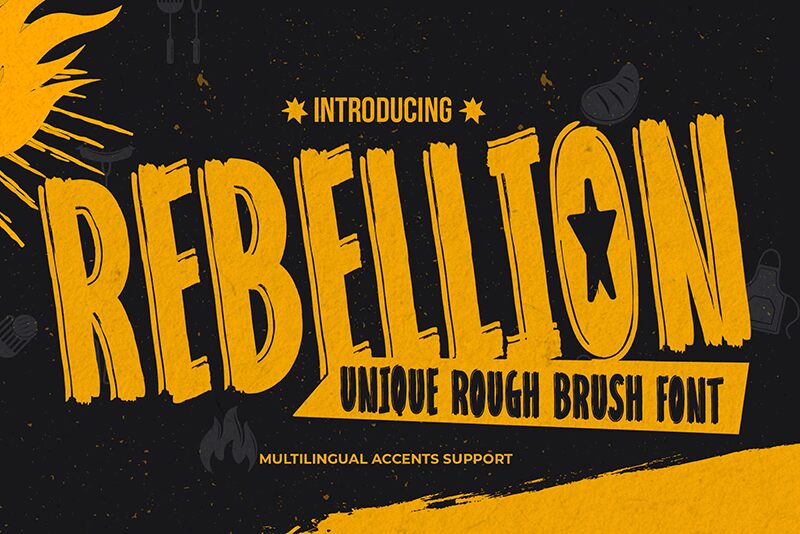
Rebelion
Rebelion by Gassstype stands out as a brush font with an unapologetically bold and extra-condensed style, embodying the essence of a modern rough brush script. Crafted to capture the spirit of spontaneity, Rebelion boasts dramatic movement and a casual quick-stroke design, bringing an authentic hand-drawn feel to any creative endeavor. Its natural touch enhances details with charm and strength, making it an ideal choice for projects that demand a standout typeface.
Whether you're designing invitations, logos, book covers, or engaging in crafts, Rebelion's robust character adds a raw and energizing vibe. This font is not just for text; its versatility extends to photography overlays, signs, window art, scrapbooking-and truly any artistic project where personality is key. Embrace the rebellious nature of your work with Rebelion: where natural looks meet impactful creativity.